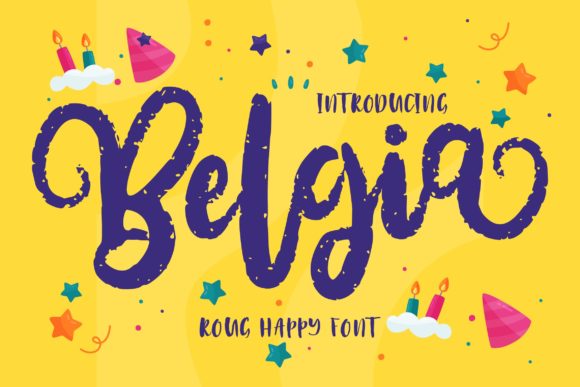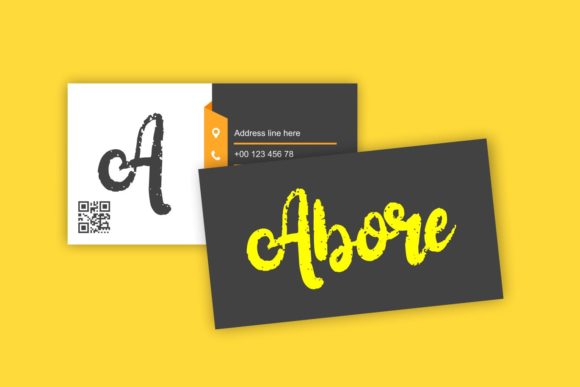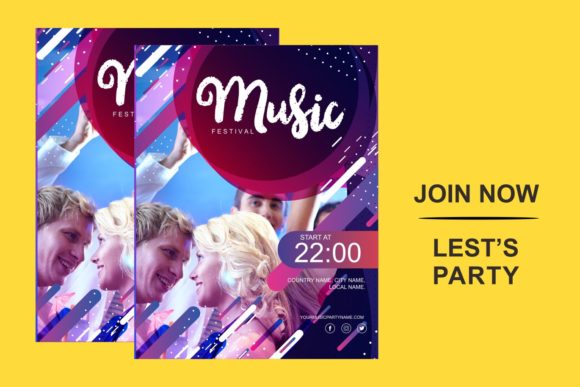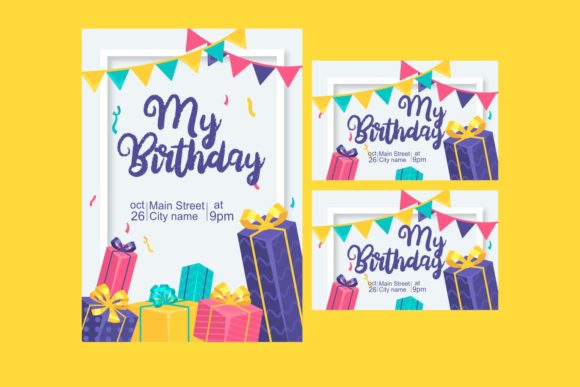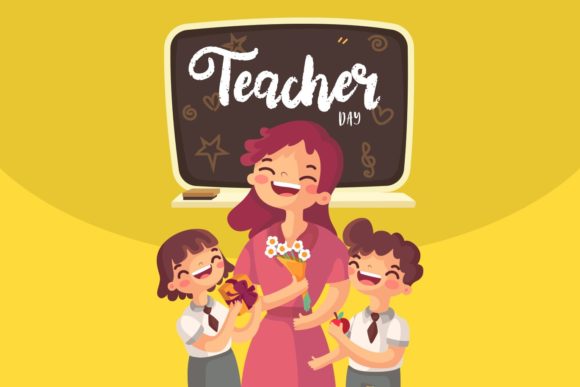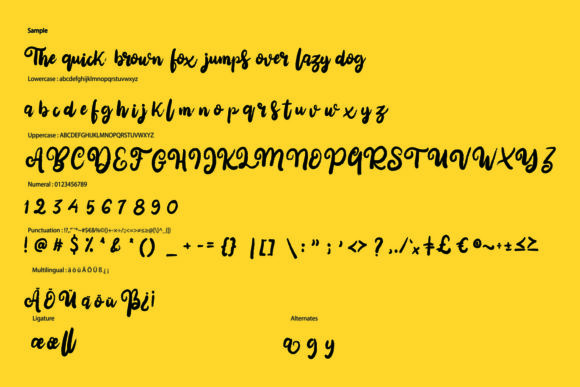
HomeScript FontsBelgia Font Script Fonts Belgia Font FacebookXPinterestWhatsApp Belgia Font Poster 2 Belgia Font Poster 3 Belgia Font Poster 4 Belgia Font Poster 5 Belgia Font Poster 6 About Belgia Font Belgia is a happy and cheerful script with a contemporary feel. Get inspired by its modern charm! DOWNLOAD ON CREATIVE FABRICAThis font is sold and delivered by Creative Fabrica. Font Canyon may earn a commission if you buy through this link. People also explored Child Font Metadine Font Retro Font Neutral Font Miradila Font Allovoneue Bold Font Romantic Love Font Honey Bee Font Dream Morning Font 340 0 TagsBelgia Font Previous articleSaligra Script FontNext articleHyldae Script Font LEAVE A REPLY Cancel reply Comment: Please enter your comment! Name:* Please enter your name here Email:* You have entered an incorrect email address! Please enter your email address here Website: Save my name, email, and website in this browser for the next time I comment. Personal Use Free Glosery Personal Use Free Read more about this font Banana Valentine Personal Use Free Read more about this font Osaka Personal Use Free Read more about this font Satori Personal Use Free Read more about this font BLOG Modern Sans-Serif Fonts That Brands Love in 2025 In 2025, modern sans-serif fonts remain a top choice for brands looking to project clarity, professionalism, and... Where to Buy American Fonts Online in 2024 Transform Your Website: Elevate Your Typography with 7 Best Web Font Generators Top 10 Handwritten Fonts That Elevate Your Designs